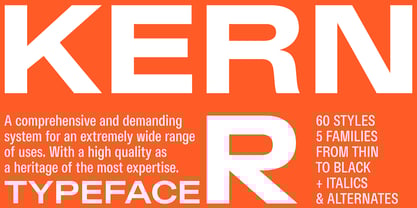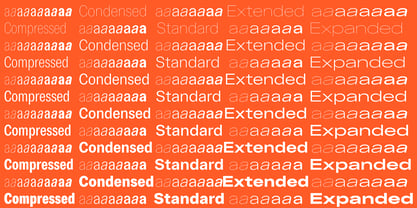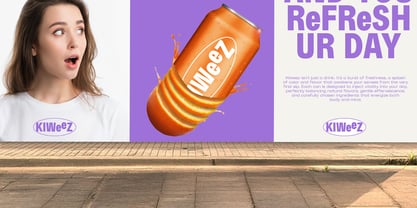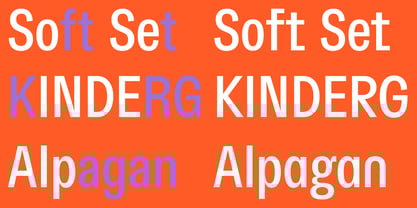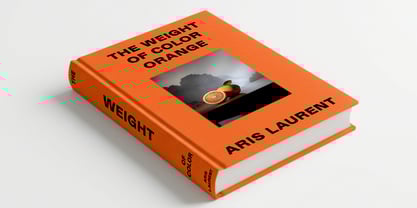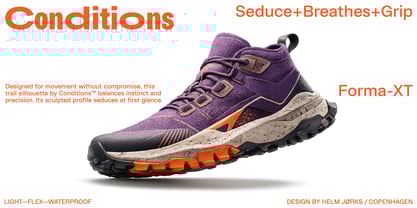
Kern
by Pizzatypefaces
The Kern Font Family was designed by Adrien Midzic and published by Pizzatypefaces. Kern contains 61 styles.
Kern Typeface is a comprehensive type system built across five subfamilies — Compressed, Condensed, Standard, Extended, and Expanded — each available in 12 styles with matching italics and carefully refined kerning. Designed as a cohesive spectrum, it moves seamlessly from narrow to wide, enabling striking contrasts while maintaining a consistent voice. Inspired by classic grotesques, it reinterprets their heritage with subtly open apertures that allow white space to flow through the letterforms. This controlled openness enhances readability at any size, from small editorial text to bold display settings. The shapes are precise, balanced, and contemporary, with a steady rhythm that supports both clarity and personality. Highly versatile, it excels in branding, editorial design, signage, digital interfaces, packaging, and motion graphics. In Compressed and Condensed, it delivers impact and efficiency; in Standard, it becomes a reliable and neutral workhorse; in Extended and Expanded, it gains presence and refinement. Its tone is functional yet expressive — a modern grotesque that breathes. Structured without feeling rigid, it conveys confidence, clarity, and forward-thinking design. A complete typographic system crafted for ambitious brands and demanding creative projects.